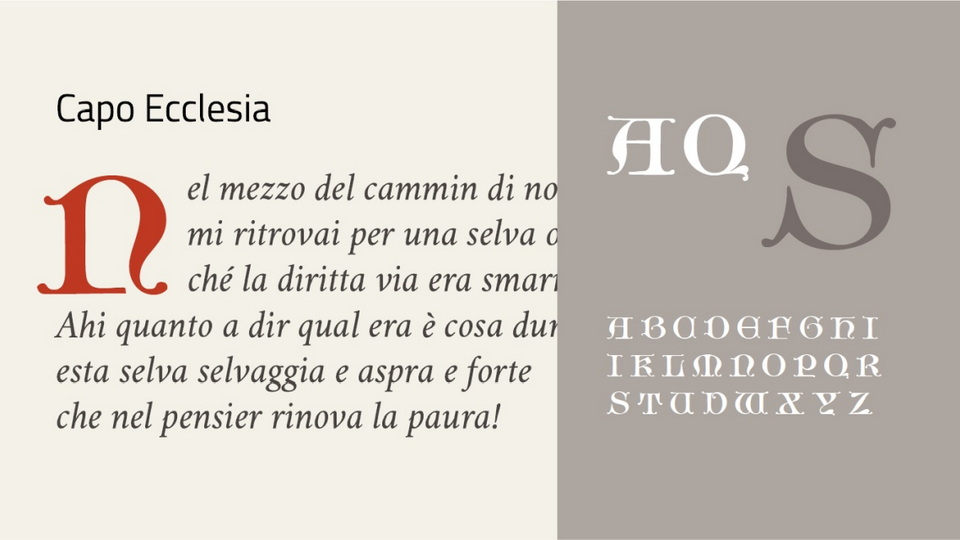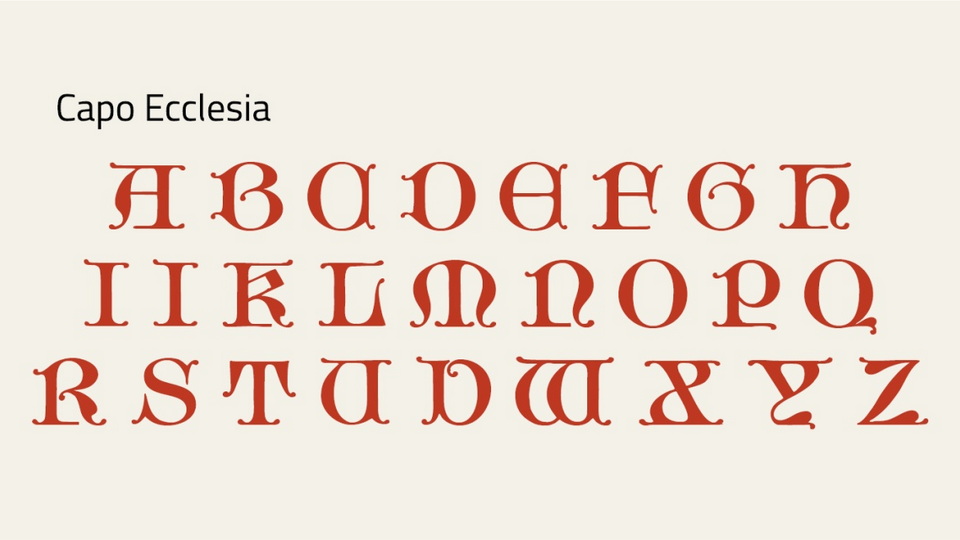
Capo Ecclesia is a medieval typeface rooted in the beauty of ancient Gothic ecclesiastical manuscripts, as documented by Eric-Jean Müller in 50 Alphabets for Technicians and Technical Schools. With its intricate letterforms and distinctively angular strokes, this font captures the spiritual and artistic essence of Gothic script, evoking the grandeur of illuminated texts from the Middle Ages.
Ideal for historical-themed projects, book covers, branding, or event designs that call for a sacred or mystical tone, Capo Ecclesia font combines historical authenticity with modern usability. Its intricate details and bold structure make it a striking choice for designs that seek to echo the craftsmanship of medieval manuscripts.
Use Capo Ecclesia font to infuse your work with the timeless elegance and mystique of Gothic ecclesiastical artistry.